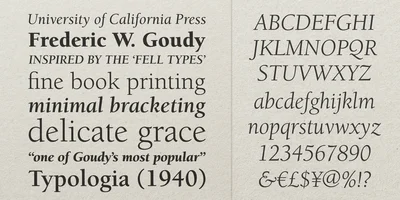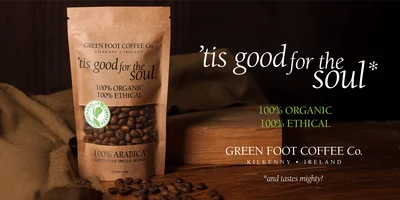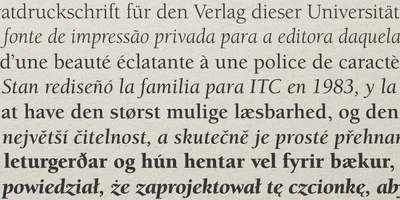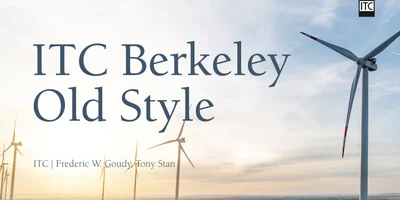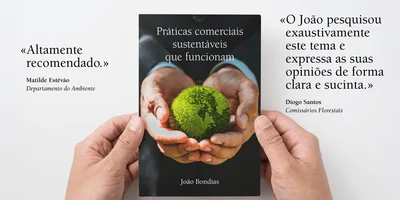
About ITC Berkeley
- Classification
- serif
- Style
- old-style
ITC Berkeley Old Style is an old-style serif typeface designed by Tony Stan for ITC in 1983. The design is a revival of Frederic Goudy's 1938 "University of California Old Style," originally created exclusively for the University of California Press at Berkeley.
History and Design
Frederic Goudy designed the original typeface in 1936–1938 at the request of the University of California Press. He preferred calling it "Berkeley" — a name he considered more aristocratic — but the university requested a broader title. The original matrices survived a fire that destroyed Goudy's workshop shortly after completion, and Lanston Monotype later re-released the design publicly as "Californian" in 1958.
Tony Stan's 1983 ITC revival expanded Goudy's original Roman and Italic into a full family of eight styles across four weights. Stan increased the x-height for improved readability at smaller sizes while preserving the warm, humanist character rooted in Venetian old-style traditions inspired by Nicolas Jenson and the Oxford Fell Types. The typeface remains UC Berkeley's official serif for its word mark.
- 8 styles: Book, Medium, Bold, Black — each with matching italics
- Venetian old-style proportions: Elongated ascenders and descenders with calligraphic weight stress
- Generous x-height: Enhanced readability compared to Goudy's original
- Fine serifs: Minimal bracketing with smooth weight transitions
- Distinctive italic: Noted as one of the most legible serif italics available
Use Cases
ITC Berkeley Old Style works effectively for:
- Book typography: Its primary strength — extended text setting with warm, inviting color
- Academic publishing: Strong scholarly associations through its UC Berkeley heritage
- Editorial design: Magazines, journals, and long-form content
- University and institutional branding: Formal, trustworthy character for academic and cultural organizations
- Formal materials: Certificates, invitations, and ceremonial documents
What is the connection to UC Berkeley?
Frederic Goudy designed the original typeface in 1938 for exclusive use by the University of California Press at Berkeley. The ITC revival was named "Berkeley Old Style" after the city, fulfilling Goudy's original naming preference.
How many weights does ITC Berkeley have?
ITC Berkeley Old Style offers 4 weights (Book, Medium, Bold, Black), each with matching italics, for a total of 8 styles.